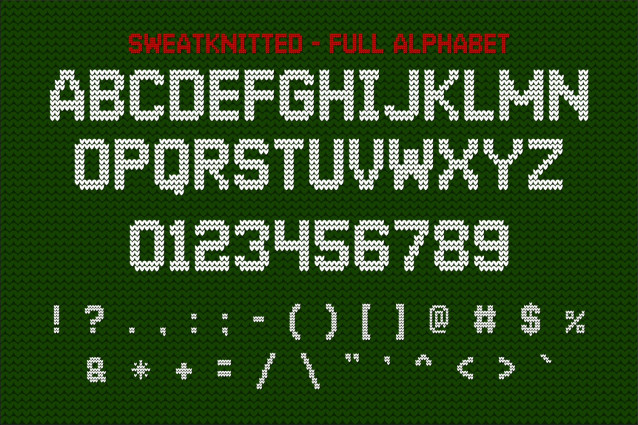
JDR SweatKnitted Font
JDR SweatKnitted Font is a simple and modern display font suitable for quotes, logos, headings, titles, and many more. Use it on any of your creative projects, and your designs will become outstanding!